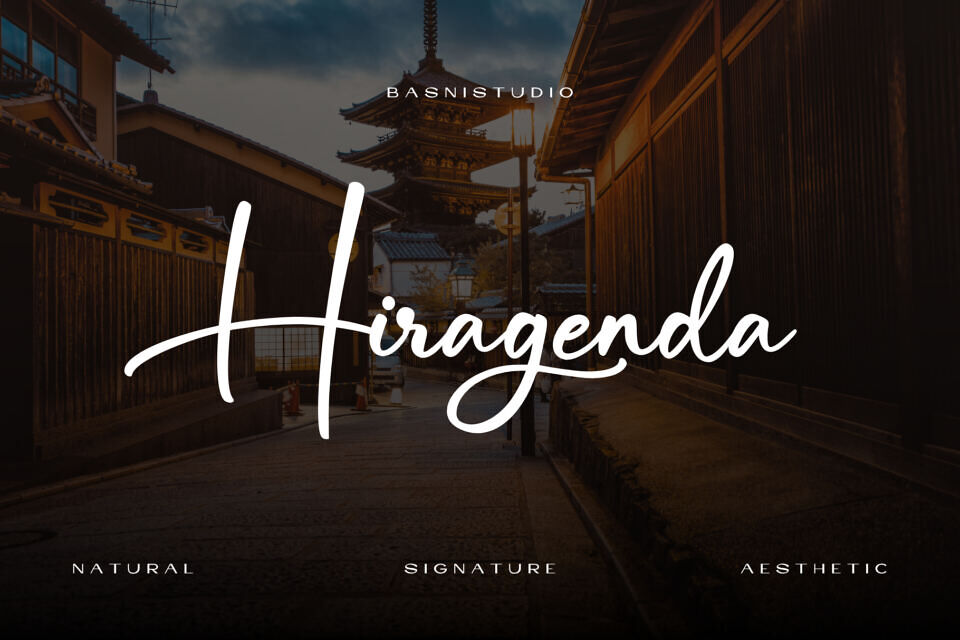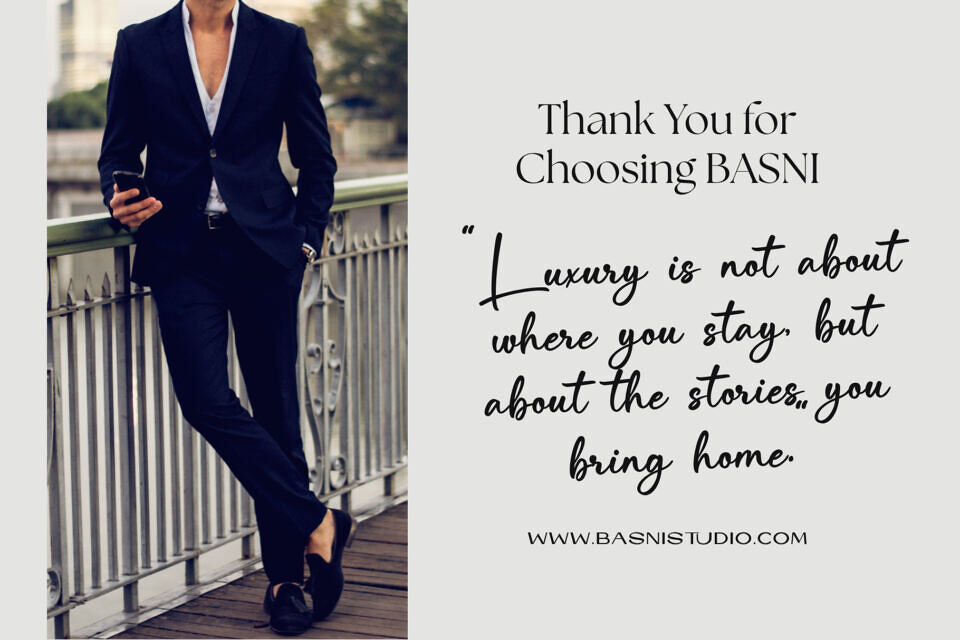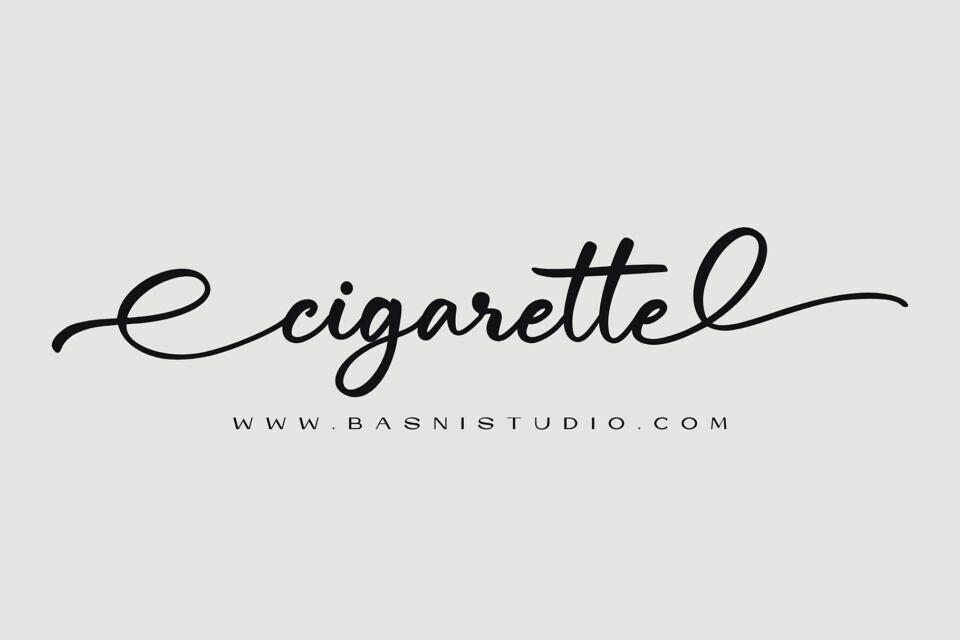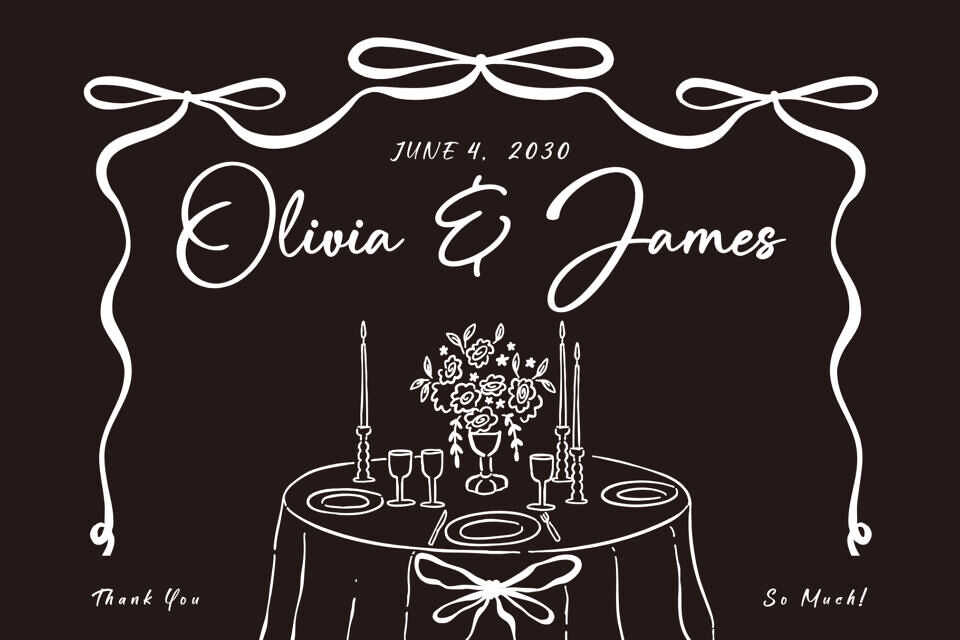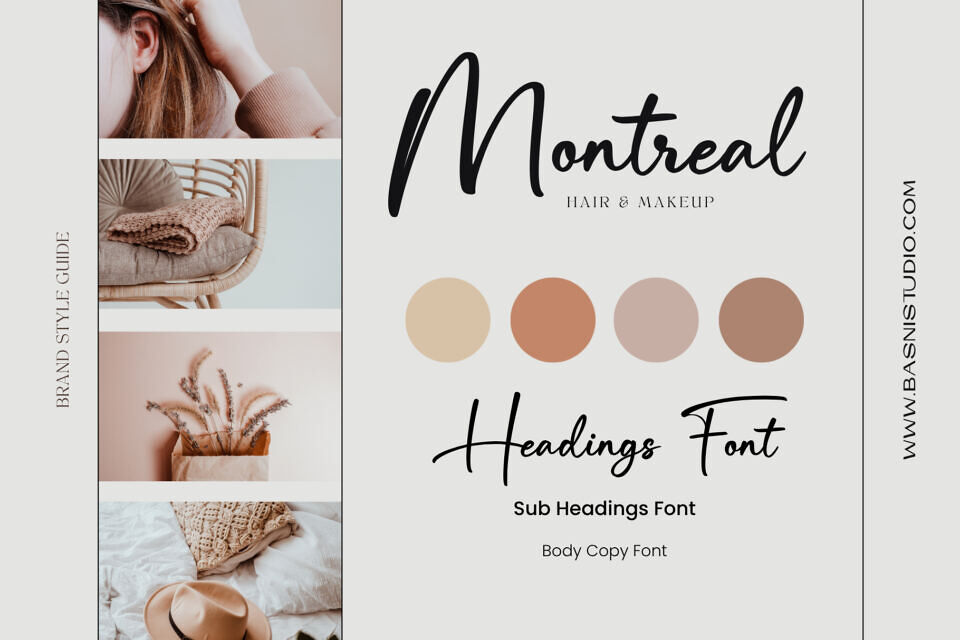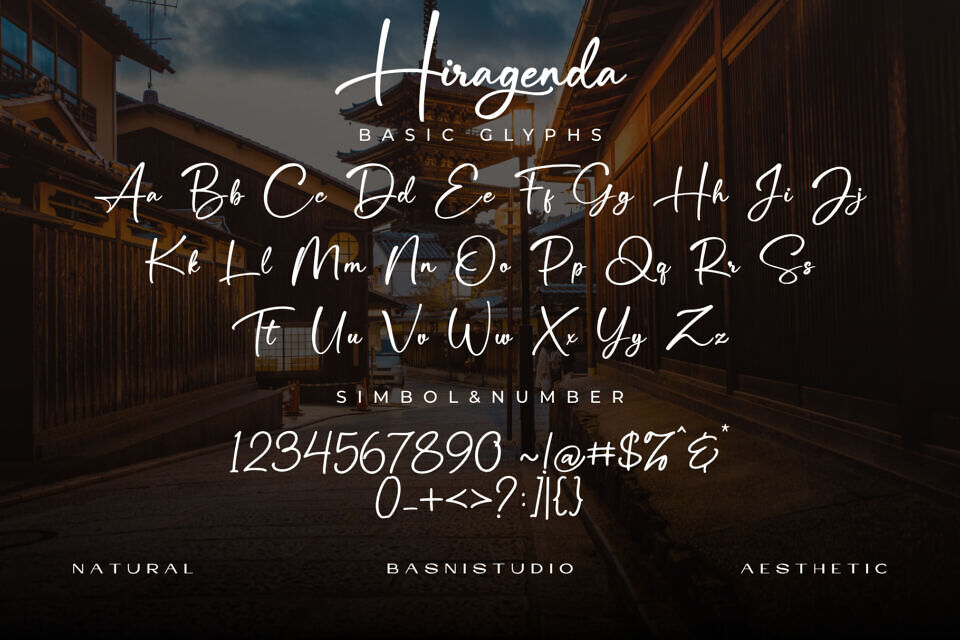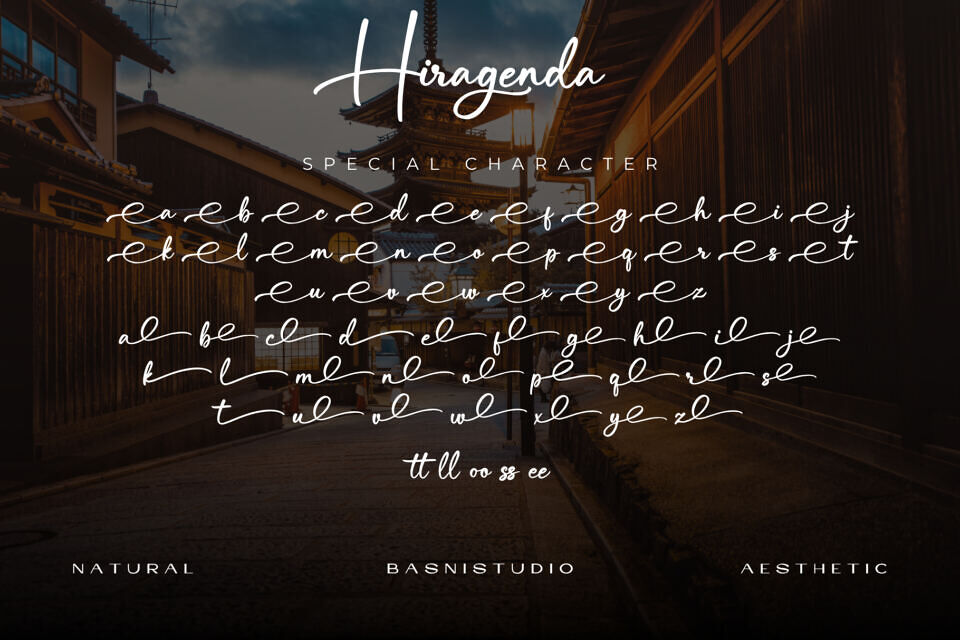
Hiragenda Font
Hiragenda is an authentic, brush-crafted signature font designed for a natural and casual aesthetic. Featuring 289 glyphs, this lettering script offers a fluid, human touch perfect for branding, social media graphics, wedding invitations, and elegant packaging.
Its spontaneous style brings a personal, handcrafted feel to creative projects, making it an ideal choice for designs requiring a sophisticated yet relaxed and artistic flair.